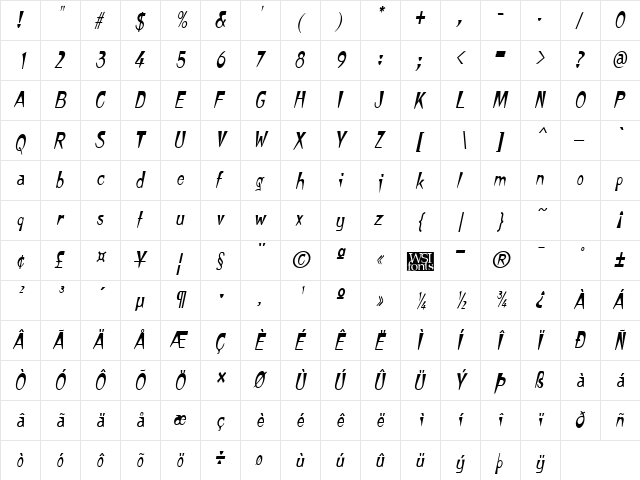
TempuraNarrow kursiv Font Preview
Design Context for TempuraNarrow Typeface
TempuraNarrow is a composed and adaptable typeface that performs quietly and consistently across a wide range of design contexts. The dynamic lean of this cut emphasises speed and emphasis in any layout. Its narrow stance lets it pack a punch even in space-constrained designs.
Pro Tip: Try TempuraNarrow for annotation and caption copy alongside an upright companion — the contrast in angle creates a dynamic but ordered typographic system.